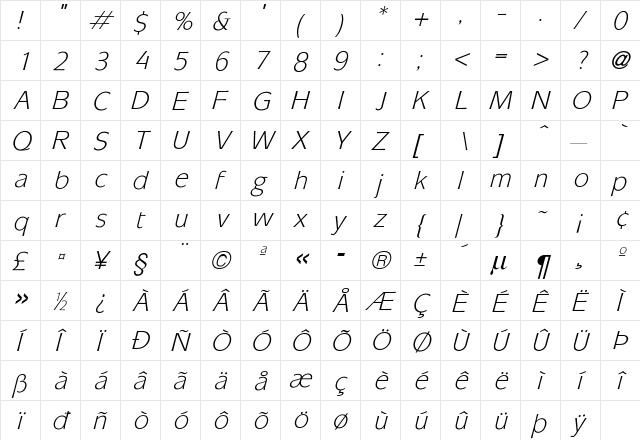
Mixer Italic
Mixer is a composed and adaptable typeface that performs quietly and consistently across a wide range of design contexts. The dynamic lean of this cut emphasises speed and emphasis in any layout.
Pro Tip: Try Mixer for annotation and caption copy alongside an upright companion — the contrast in angle creates a dynamic but ordered typographic system.